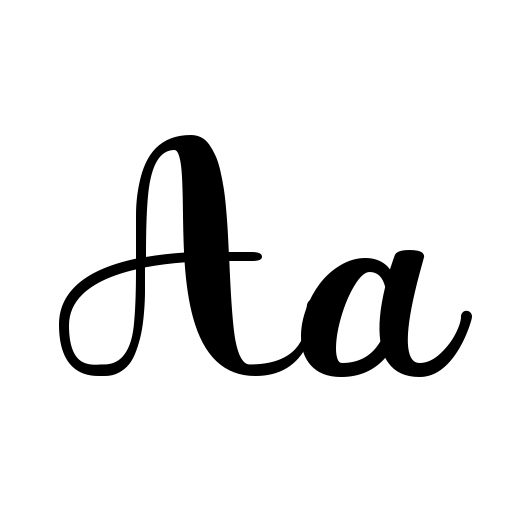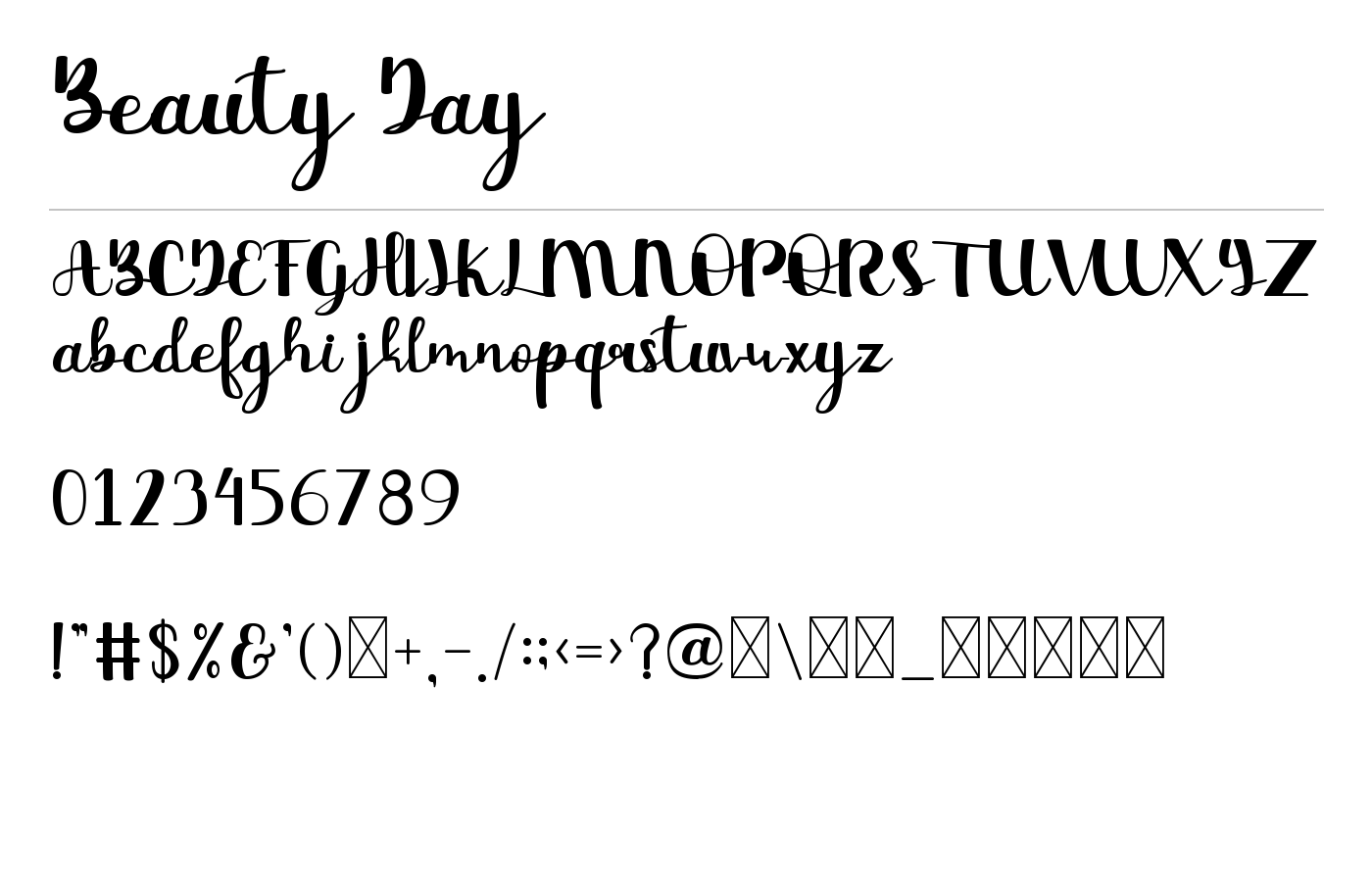
Beauty Day is a charming script font featuring smooth, flowing strokes that blend casual elegance with a touch of playfulness. Its moderate weight and slightly condensed letterforms make it perfect for adding a warm, inviting feel to branding, invitations, and lifestyle projects, while its clear readability ensures it works well in headlines and decorative text. This font captures a friendly, handcrafted spirit ideal for beauty, fashion, and creative designs seeking a personal touch.
Beauty Day Font
About Beauty Day Font